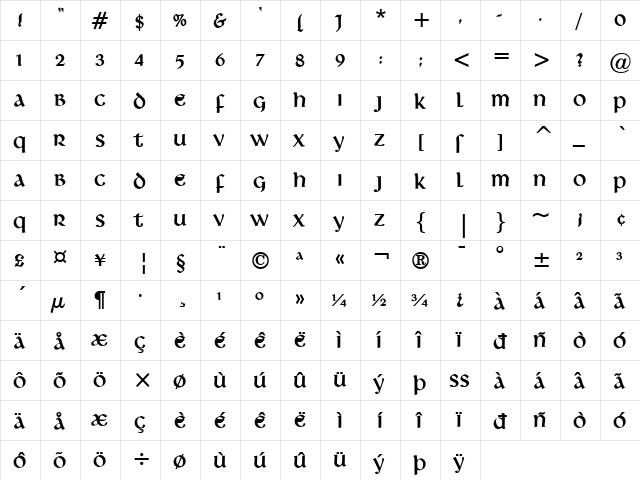
Deutsche Uncialis Regular Font Preview
Deutsche Uncialis Regular
Design Context for Deutsche Uncialis Typeface
Deutsche Uncialis is a composed and adaptable typeface that performs quietly and consistently across a wide range of design contexts.